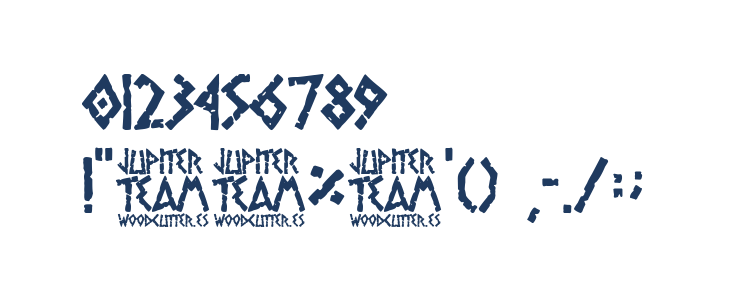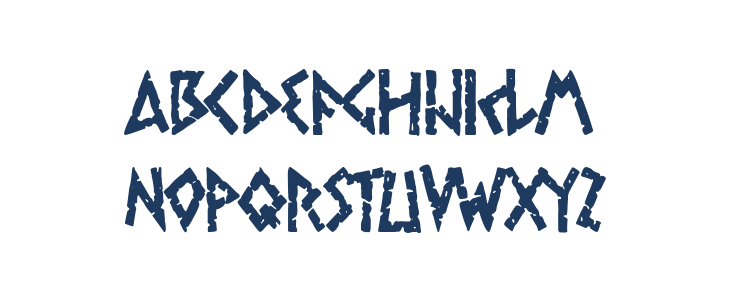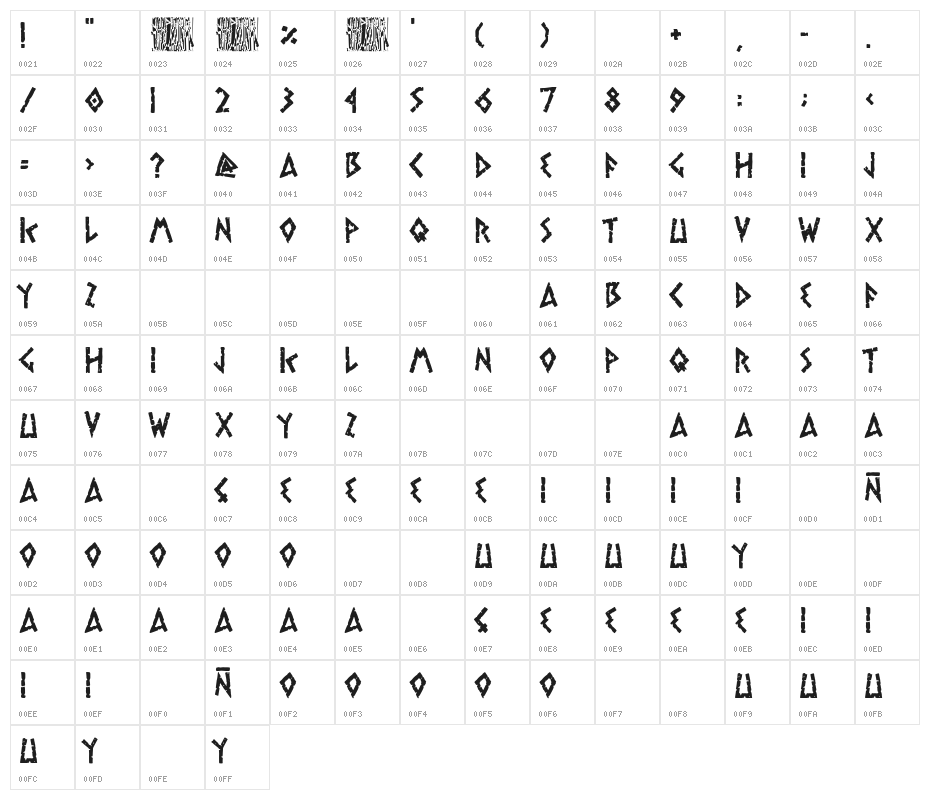
jupiter team Font
jupiter team Description
A jagged, angular display font with a distressed, cut-out appearance, featuring irregular edges and bold, geometric letterforms. The characters are uppercase only, with a rough, hand-crafted style that mimics torn or splintered material.
| Overall Style | Decorative, Grunge, Edgy |
| Proposed Projects | Horror posters, Halloween invitations, band logos, edgy branding, video game titles, event flyers. |